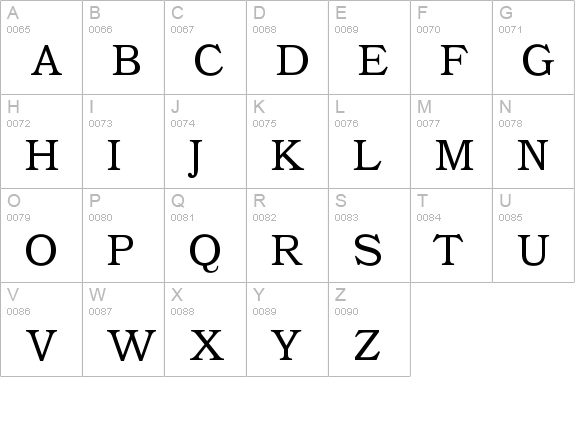
Bookman Headline Font Details
Bookman Headline is a classic serif font that exudes elegance and sophistication. With its timeless appeal and distinctive letterforms, this versatile typeface is perfect for adding a touch of refinement to any design project. The sharp serifs and clean lines of Bookman Headline make it ideal for headlines, titles, and other display purposes. Whether you're creating a poster, flyer, or logo, this font will help your text stand out and make a lasting impression. Best of all, Bookman Headline is freely available to download at FontsMarket.com. This means you can access this high-quality font at no cost, making it a valuable addition to your font library. Don't miss out on the opportunity to enhance your designs with the classic beauty of Bookman Headline. Download it today and take your typography to the next level.